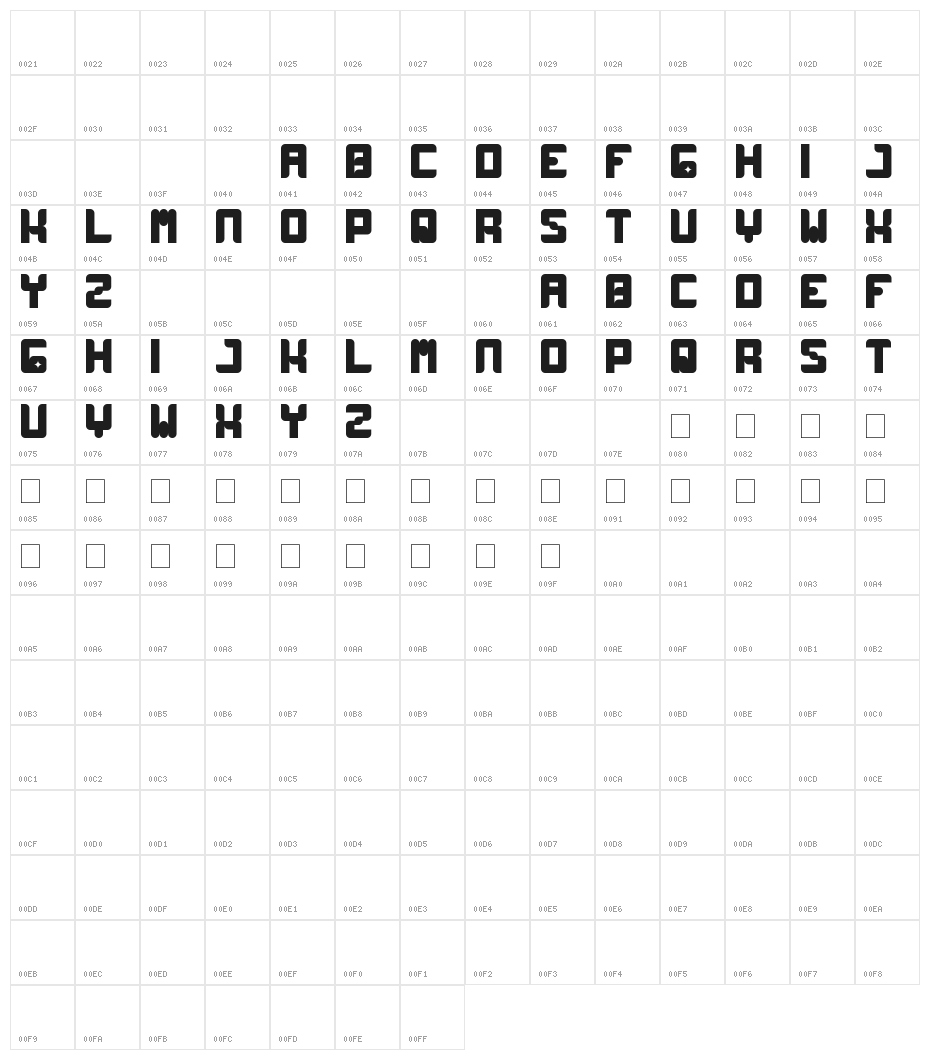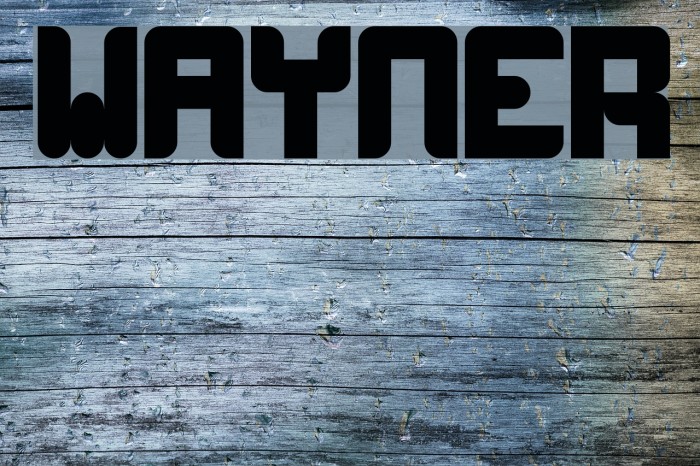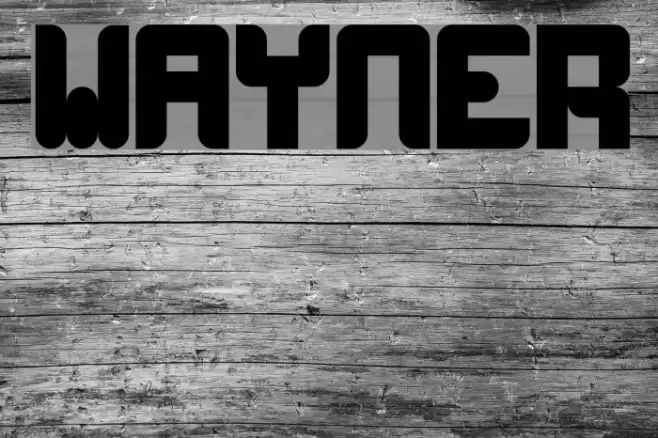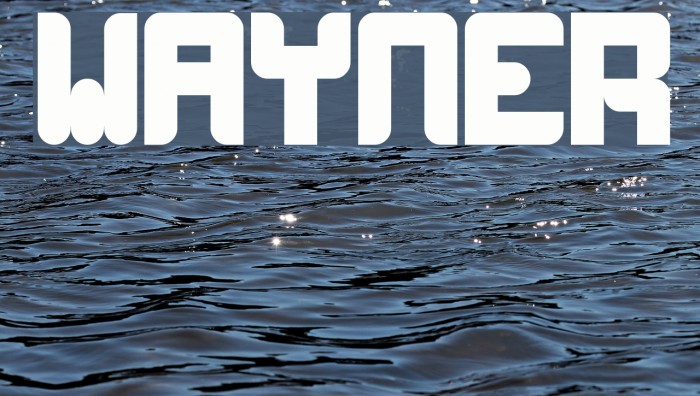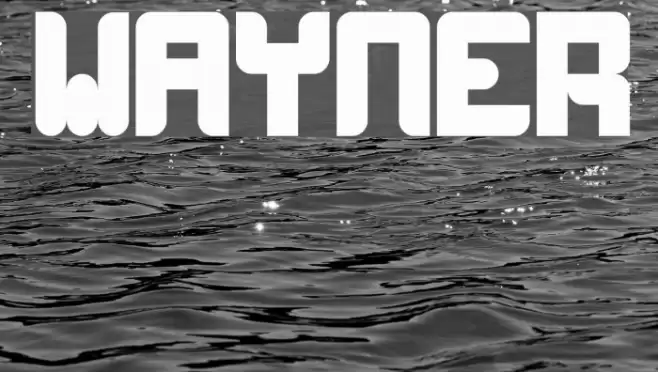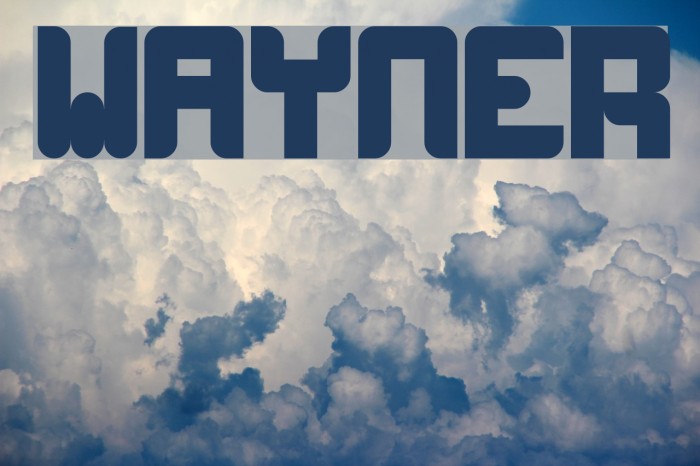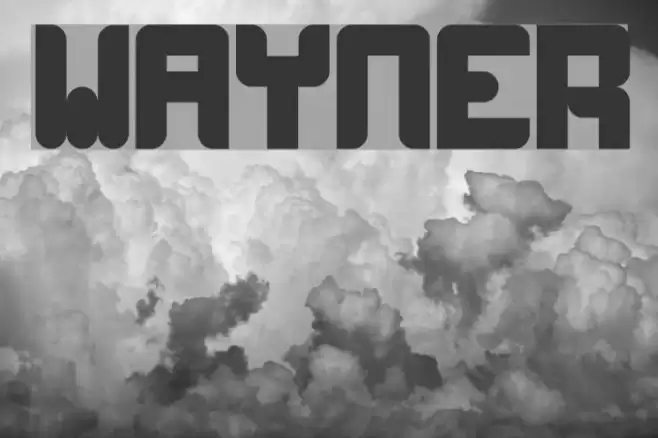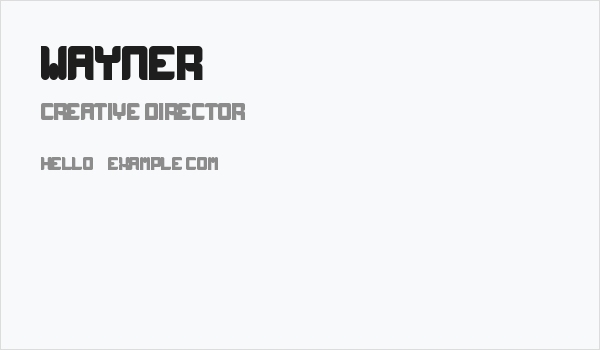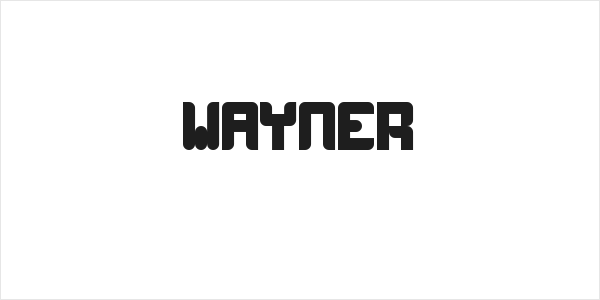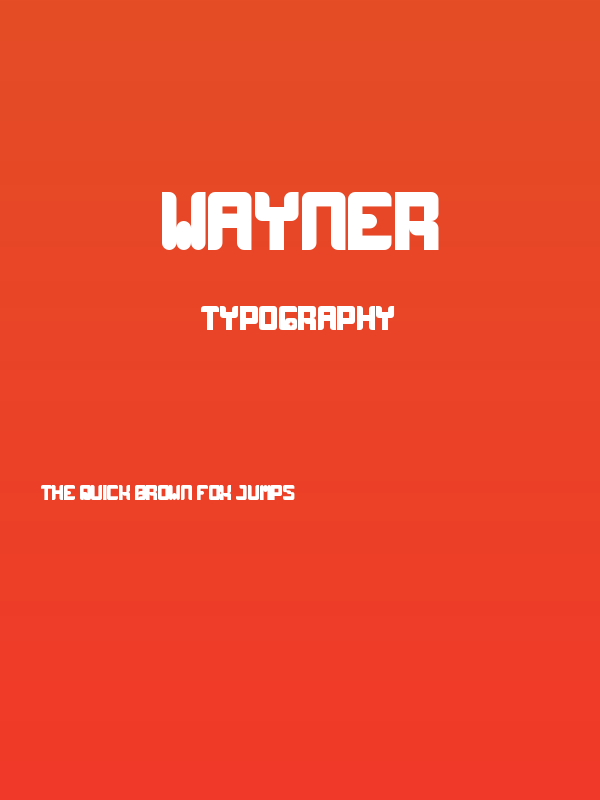
wayner Font
wayner Description
This font features a bold, geometric style with a strong presence. The characters are constructed with thick, uniform strokes, giving them a robust and modern appearance. The design incorporates rounded edges and a blocky structure, creating a sense of stability and strength. The uppercase letters are particularly striking, with a consistent height and width that enhances readability. The font's unique style makes it suitable for attention-grabbing headlines and logos. Its boldness and geometric form lend it a contemporary feel, while the rounded edges add a touch of softness.
| Proposed Projects | Ideal for branding, logos, posters, and headlines that require a strong visual impact. |